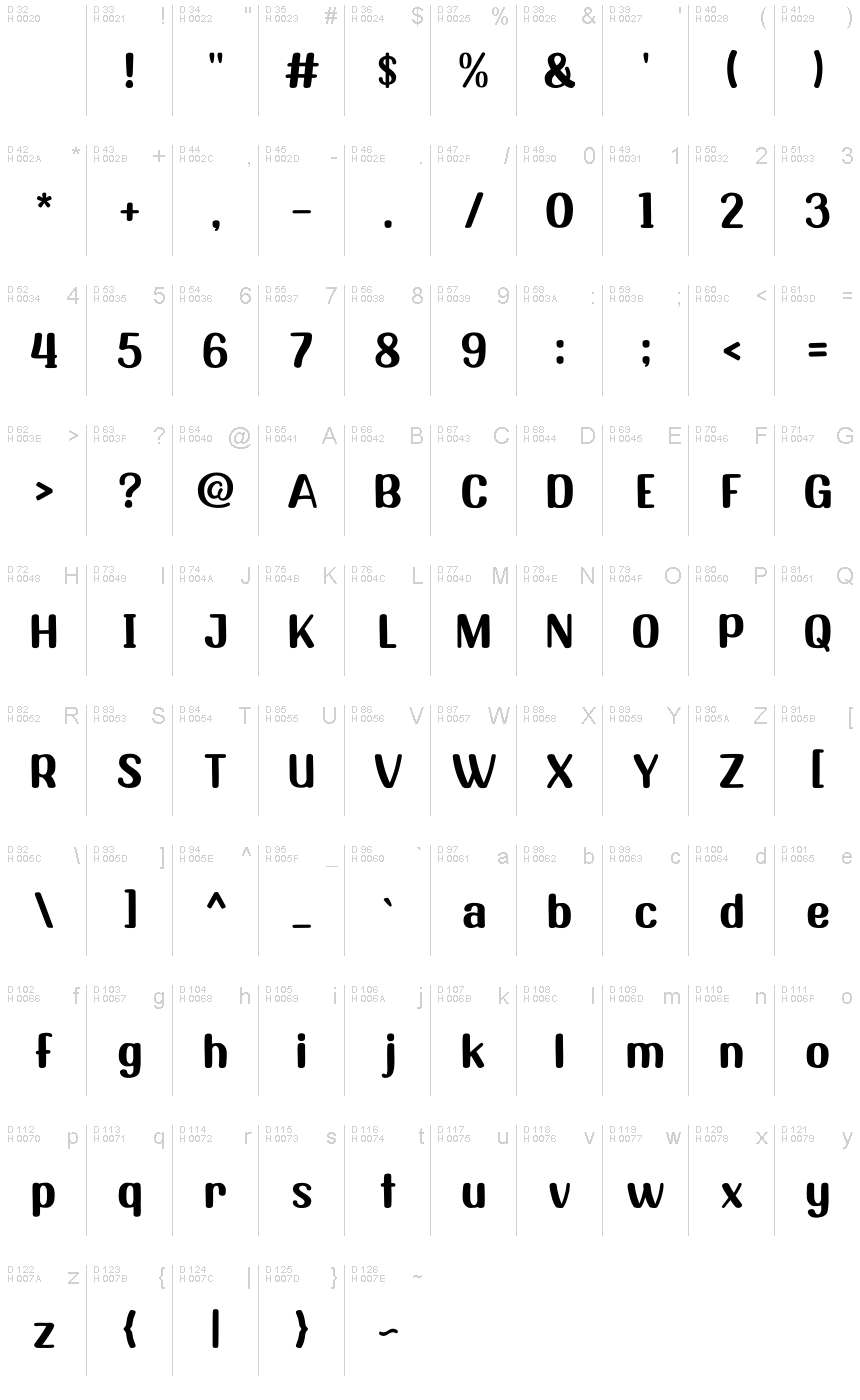
PONYPEN
Ponypen, a bold and dynamic font from the talented team at Typeline Studio, commands attention with its striking visual presence. This display typeface exudes a delightful sense of playfulness, seamlessly blending whimsical curves with a confident, assertive stance. The clean, geometric letterforms dance across the page, effortlessly capturing the essence of a spirited, energetic spirit.
Ponypen's versatility shines through, making it a versatile choice for a wide range of design applications. From eye-catching headlines and attention-grabbing logos to impactful branding and expressive typography, this font's unique character lends itself to projects that seek to convey a sense of vibrancy, enthusiasm, and a touch of the unexpected.